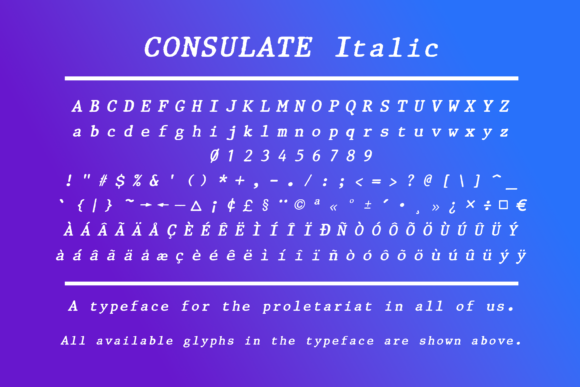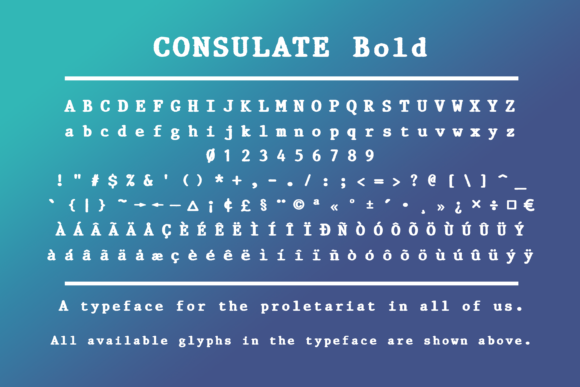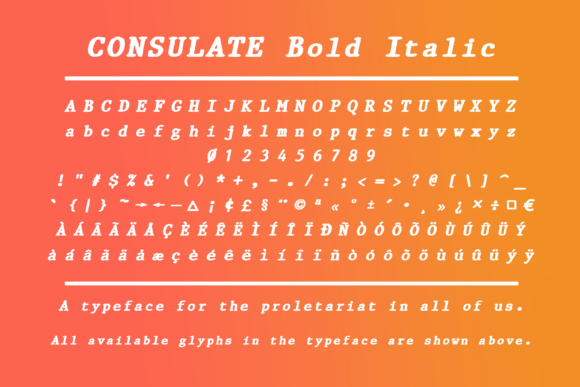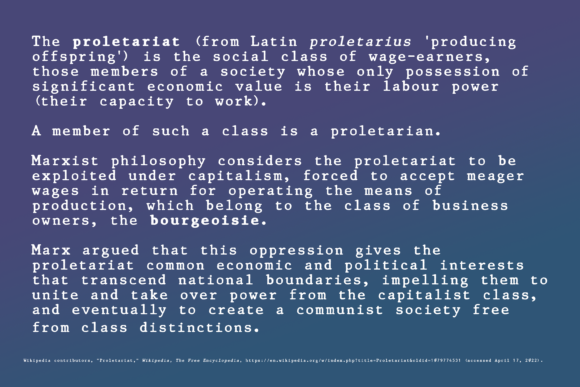
Introducing Consulate Font: A Bold and Assertive Typeface Inspired by the Soviet Era
In the world of typography, fonts play a crucial role in conveying messages, expressing emotions, and evoking eras. For designers and crafters, selecting the right font can make all the difference in their creative projects. If you’re looking for a typeface that exudes confidence, authority, and a touch of nostalgia, look no further than Consulate Font. Designed for the proletariat in all of us, this font is a bold and assertive typeface that pays homage to the Soviet era of the Cold War.
The Story Behind Consulate Font
Consulate Font is more than just a typeface; it’s a statement piece. Its design is deeply rooted in the Soviet era, an epoch characterized by grandeur, monumentality, and a sense of collective identity. The font’s creator aimed to capture the essence of this period, when typography played a significant role in shaping the visual landscape of propaganda posters, official documents, and public signage.
The result is a typeface that embodies the spirit of the Soviet era, with its robust lines, geometric shapes, and a sense of solidity. Consulate Font is not just a nostalgic nod to the past; it’s a bold declaration of the present. Its assertive presence makes it perfect for designers and crafters who want to add a touch of confidence and authority to their work.
Design Characteristics of Consulate Font
So, what sets Consulate Font apart from other typefaces? Here are some of its key design characteristics:
- Geometric shapes: Consulate Font features geometric shapes, such as rectangles, triangles, and circles, which give it a sturdy and monumental feel.
- Robust lines: The font’s lines are bold and assertive, with a sense of weightiness that commands attention.
- Soviet-inspired aesthetic: The font’s design is deeply rooted in the Soviet era, with a nod to the typography of propaganda posters and official documents.
- Larger than life: Consulate Font runs a little larger than other fonts of the same point size, making it perfect for headlines, titles, and statements.
Uses of Consulate Font
Consulate Font is a versatile typeface that can be used in a variety of creative projects, including:
- Graphic design: Use Consulate Font to add a bold and assertive touch to your graphic design projects, such as posters, flyers, and brochures.
- Branding: The font’s confident and authoritative presence makes it perfect for branding projects, such as logos, business cards, and letterheads.
- Signage: Consulate Font is ideal for signage projects, such as billboards, banners, and public signage.
- Digital design: The font can also be used in digital design projects, such as websites, mobile apps, and social media graphics.
Tips for Using Consulate Font
Here are some tips for using Consulate Font effectively in your creative projects:
- Use it sparingly: Due to its bold and assertive nature, Consulate Font is best used sparingly. Use it for headlines, titles, and statements, and pair it with a more subtle font for body text.
- Experiment with colors: Consulate Font looks great in bold, bright colors. Experiment with different colors to find the one that works best for your project.
- Play with sizes: The font’s larger-than-life presence makes it perfect for experimenting with different sizes. Try using it in different sizes to create visual interest and hierarchy.
Consulate Font is a bold and assertive typeface that pays homage to the Soviet era of the Cold War. Its robust lines, geometric shapes, and confident presence make it perfect for designers and crafters who want to add a touch of authority and confidence to their work. Whether you’re working on a graphic design project, branding initiative, or signage project, Consulate Font is a versatile typeface that is sure to make a statement.
So, if you’re looking for a font that embodies the spirit of the proletariat, look no further than Consulate Font. Its unique design characteristics, versatility, and bold presence make it an excellent addition to any creative project.